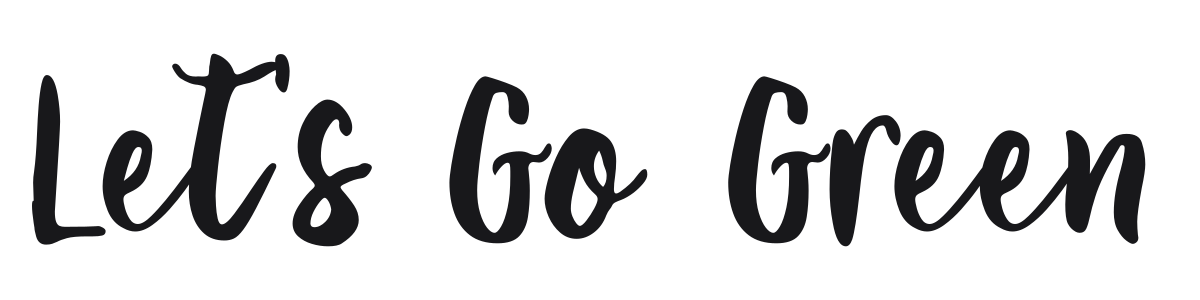
Let's Go Green
Let's Go Green is a bold brush script with confident, flowing strokes and a lively hand-lettered feel. The wide, rounded characters bounce with energy while maintaining strong legibility at headline sizes. It carries a natural, organic warmth that suits branding projects in food, wellness, and lifestyle.